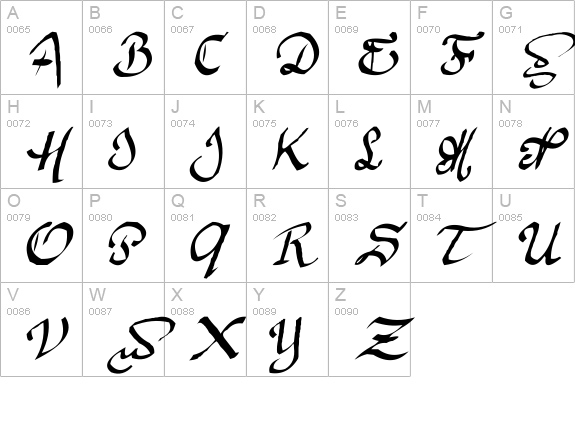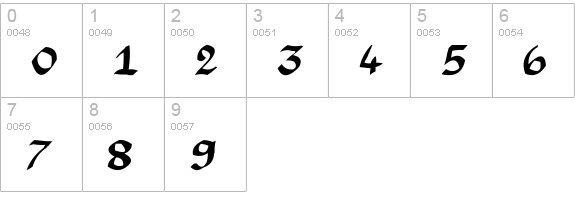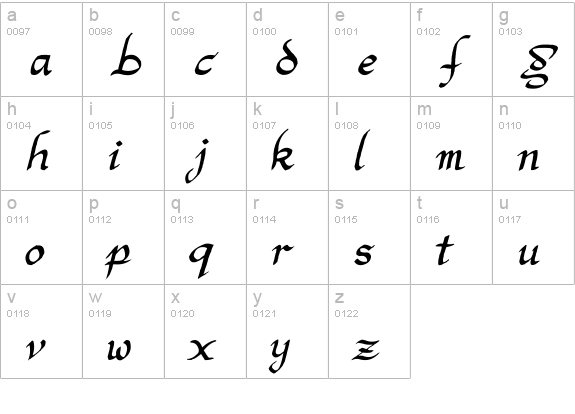
Argor Man Scaqh Font Details
Argor Man Scaqh font is a unique and stylish typeface that exudes a sense of modernity and sophistication. Its sleek lines and sharp edges give it a contemporary look that is perfect for a wide range of design projects. Whether you're creating a logo, poster, or website, Argor Man Scaqh font will make your text stand out and leave a lasting impression. What's even better is that Argor Man Scaqh font is completely free to download at FontsMarket.com. This means you can enhance your designs without having to worry about any additional costs. With its versatility and eye-catching design, Argor Man Scaqh font is a must-have for any designer looking to add a touch of elegance to their work. Download it today and see how it can elevate your designs to the next level.